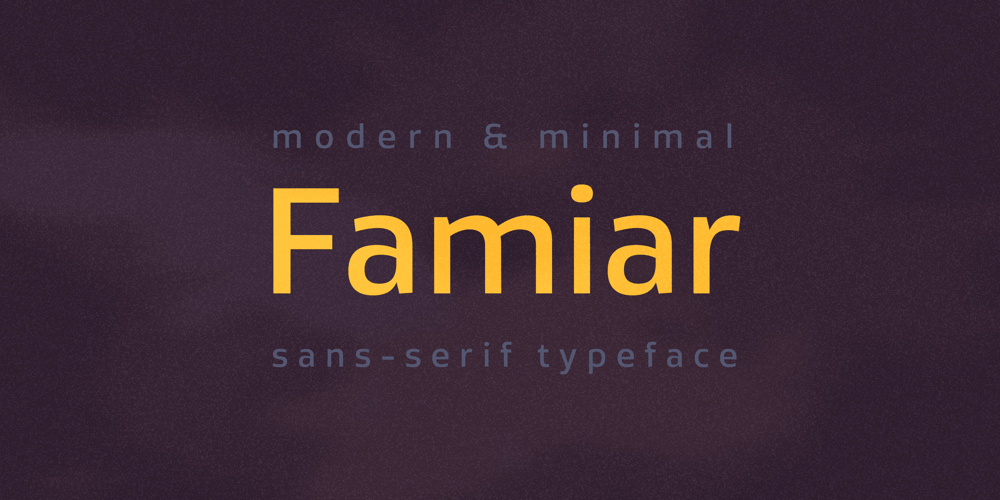
Famiar Font Family was designed by Måns Grebäck and published by Mans Greback. Famiar contains 18 styles and family package options. Famiar is a professional sans-serif typeface. It is friendly and optimistic while retaining an intellectual appearance and smooth, balanced curvatures. Drawn and created by Mans Greback between 2020-2022, Famiar has a fresh style and a strong personality, and is a great option for many modern designs. Provided in 18 high-quality styles, such as Thin, Light, Regular, Bold, SemiBold, ExtraBold, Black and Italic, the diversity of the typeface family ensures it can always be used to its fullest potential. Famiar is built with advanced OpenType functionality and has a guaranteed top-notch quality, containing stylistic and contextual alternates, ligatures and more features; all to give you full control and customizability. It has extensive lingual support, covering all Latin-based languages, from Northern Europe to South Africa, from America to South-East Asia. It contains all characters and symbols you’ll ever need, including all punctuation and numbers.